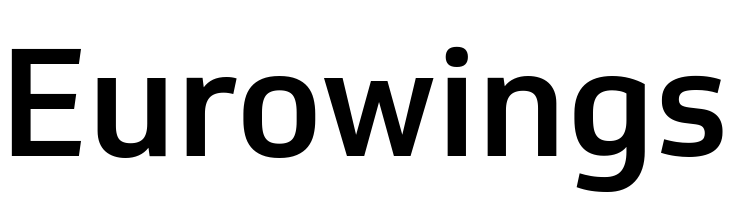
Eurowings Logo Font
AirlineEurowings is a low-cost airline based in Germany that operates flights to destinations in Europe, the Middle East, and Africa. The airline was founded in 1996 and is a subsidiary of the Lufthansa Group.
The Eurowings logo features Soleto Medium font, designed by Dalton Maag. The Soleto typeface has a quiet confidence that can be seen in its multi-weight versions. It can be used to create an even rhythm and texture across large sections of text, but it can also stand out at larger sizes.